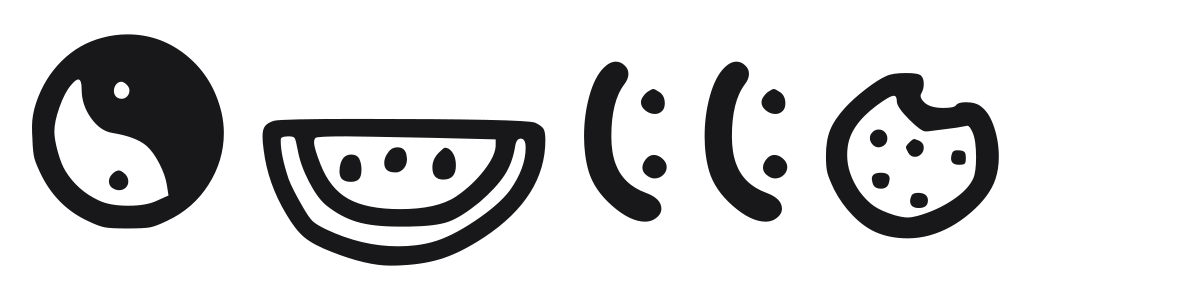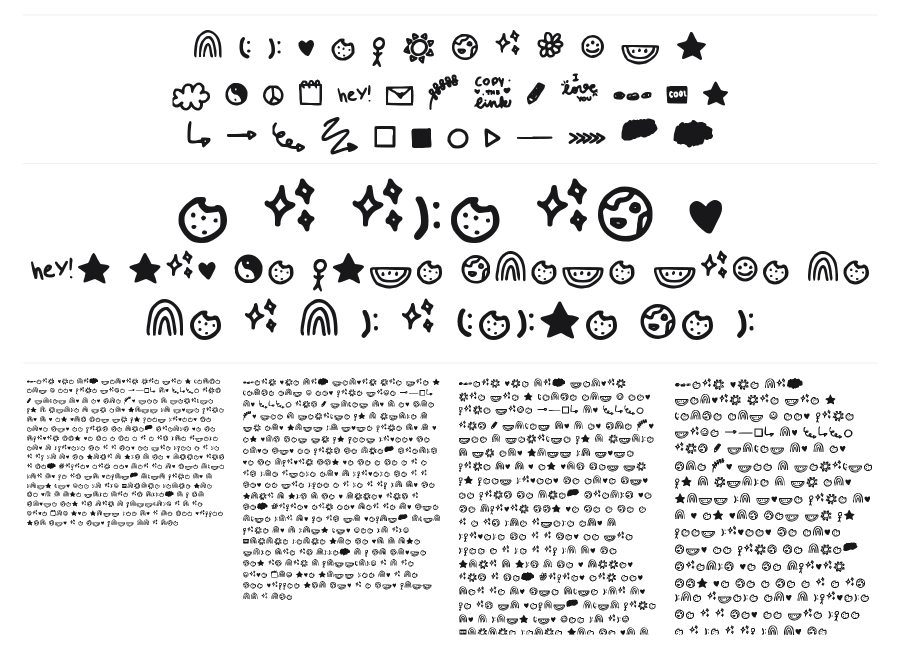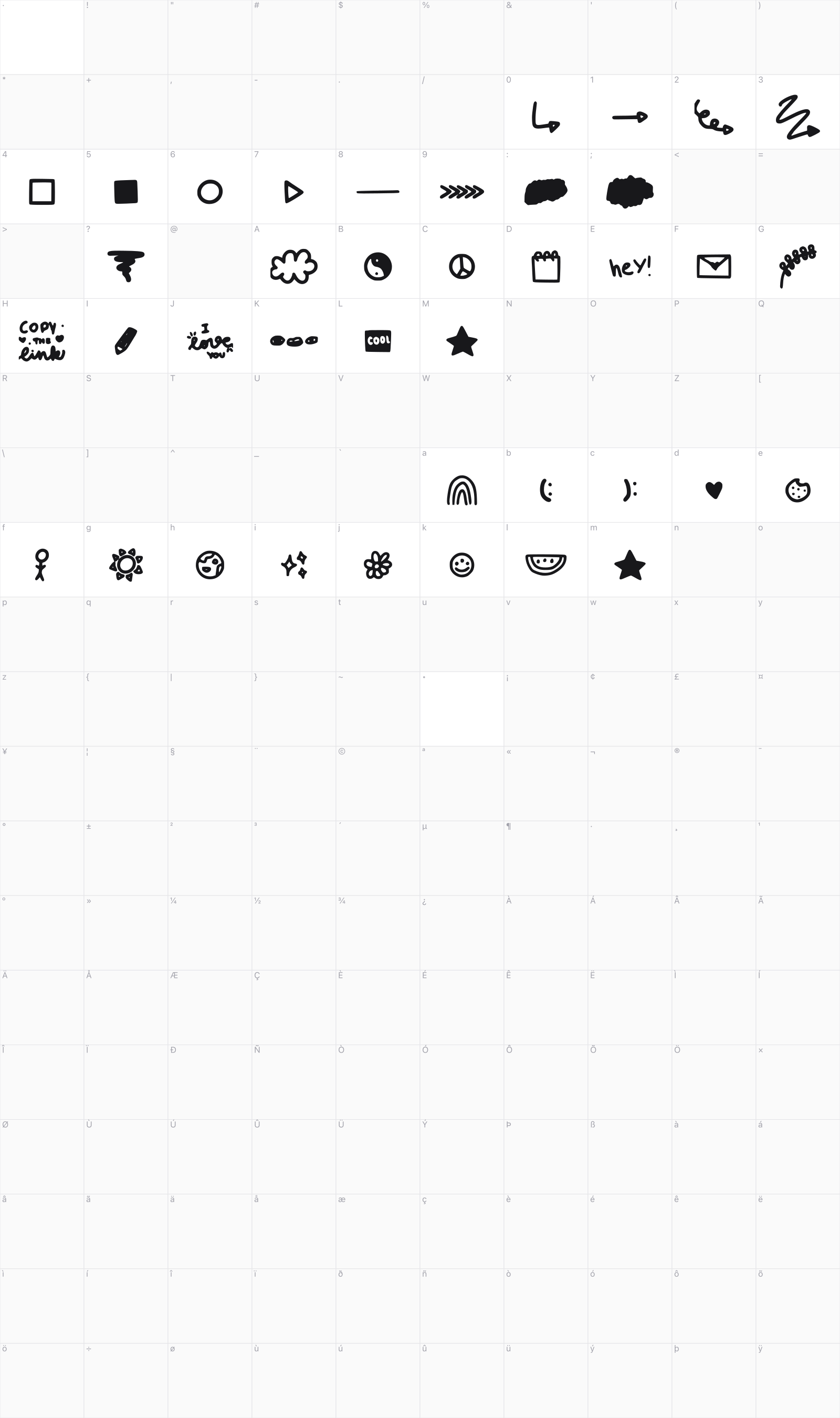
Blubbery
Blubbery is a hand-drawn dingbat font filled with cheerful symbols: smiley faces, stars, rainbows, suns, hearts, and flowers. Each glyph has a chunky, rounded quality that feels like something sketched in a notebook margin. Great for adding a playful, handmade touch to stickers, packaging, or social graphics.